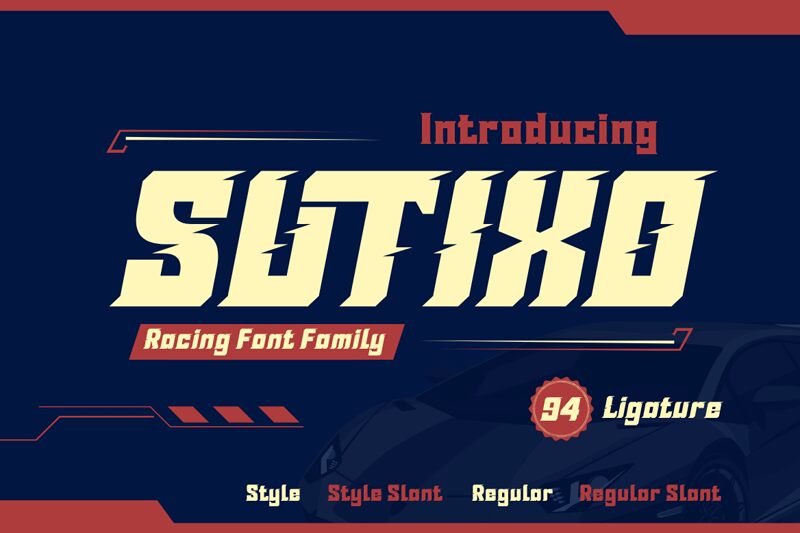
Sutixo emerges as a powerful statement in the realm of display fonts, courtesy of Twinletter's creative vision. Its bold stance exudes confidence, commanding attention with its striking presence. The characters boast an undeniable robustness that is both modern and sophisticated, making it a standout choice for designers seeking to imbue their work with a sense of strength and contemporary flair.
The font's assertive character makes it ideal for impactful headlines, posters, branding, and any design scenario where the message needs to be delivered with conviction. Sutixo is not just about being seen; it's about being remembered, carving out space in the viewer's mind through its memorable aesthetic.